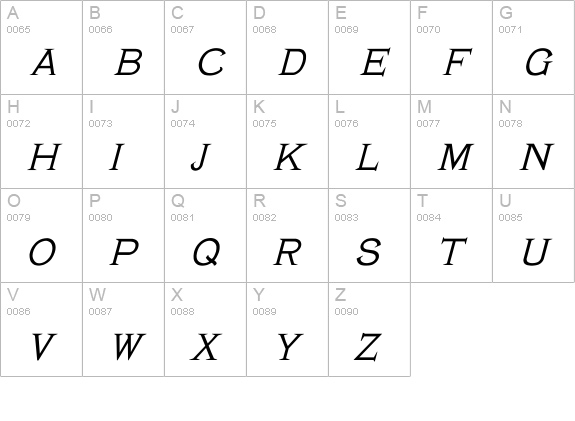
Verena Italic Font Details
Verena Italic is a distinctive, italic variant in the Verena typeface family \xE2\x80\x94 well suited to design and typography projects.
Verena Italic is a stunningly elegant font that exudes sophistication and grace. Its delicate and flowing lines make it the perfect choice for projects that require a touch of elegance and femininity. Whether used for wedding invitations, fashion magazines, or branding materials, Verena Italic adds a touch of class to any design. What sets Verena Italic apart is its versatility. With its stylish and contemporary appeal, it can effortlessly adapt to both modern and traditional designs. The slanted italic style of the font adds a unique flair, making it stand out from the crowd. But what truly sets Verena Italic apart is that it is free. Yes, you read that right. This exquisite font is freely available to download at FontsMarket.com. Now, you can access this gem of a font without breaking the bank. Not only is Verena Italic visually stunning, but it is also incredibly easy to use. Its seamless legibility ensures that your message is conveyed effortlessly, while its wide character set allows for endless creative possibilities. Whether you're a professional designer or a DIY enthusiast, Verena Italic is a must-have font in your collection. It effortlessly adds a touch of elegance and sophistication to any project, making it a go-to choice for those who strive for perfection. So why wait? Head over to FontsMarket.com and download Verena Italic for free today. Elevate your designs to new heights with the timeless beauty of this remarkable font.